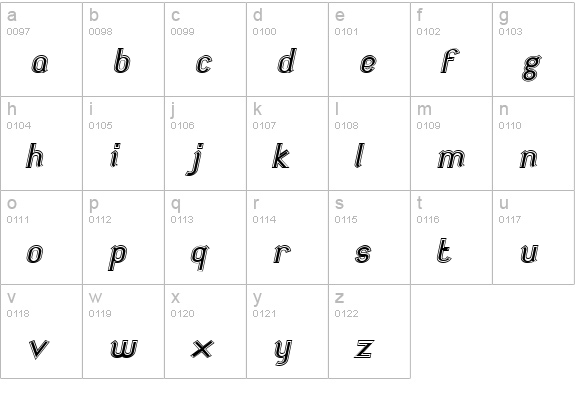
futile extraoutitalic Font Details
The futile extraoutitalic font is a unique and stylish typeface that adds a touch of sophistication to any design project. Its elegant and modern appearance makes it perfect for use in branding, advertising, and editorial purposes. The italicized outwards slant of the letters adds a dynamic and eye-catching element to your text. This font is ideal for creating titles, headlines, and other prominent text elements that demand attention. The futile extraoutitalic font is designed to stand out and make a statement, making it a great choice for projects that require a bold and impactful aesthetic. Best of all, this font is available for free download at FontsMarket.com. You can easily access and use this font in your designs without having to worry about any additional costs. Don't miss out on the opportunity to enhance your projects with the futile extraoutitalic font today!